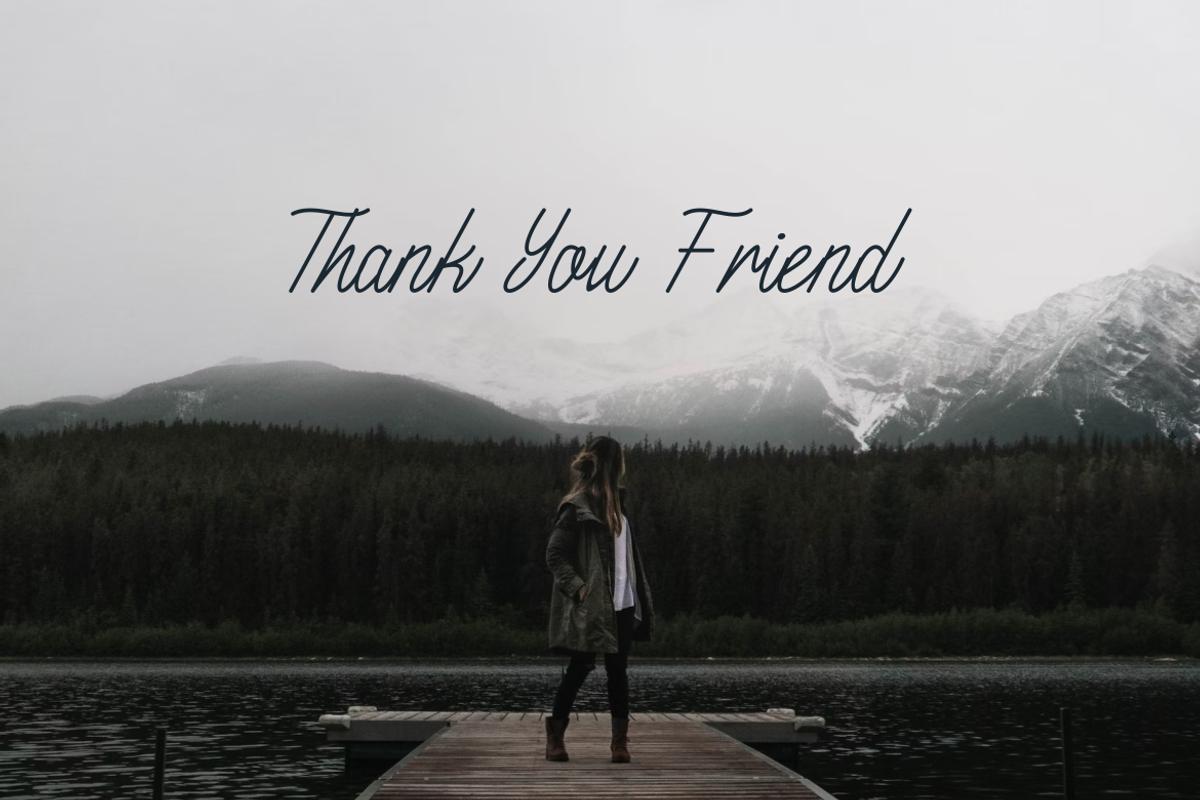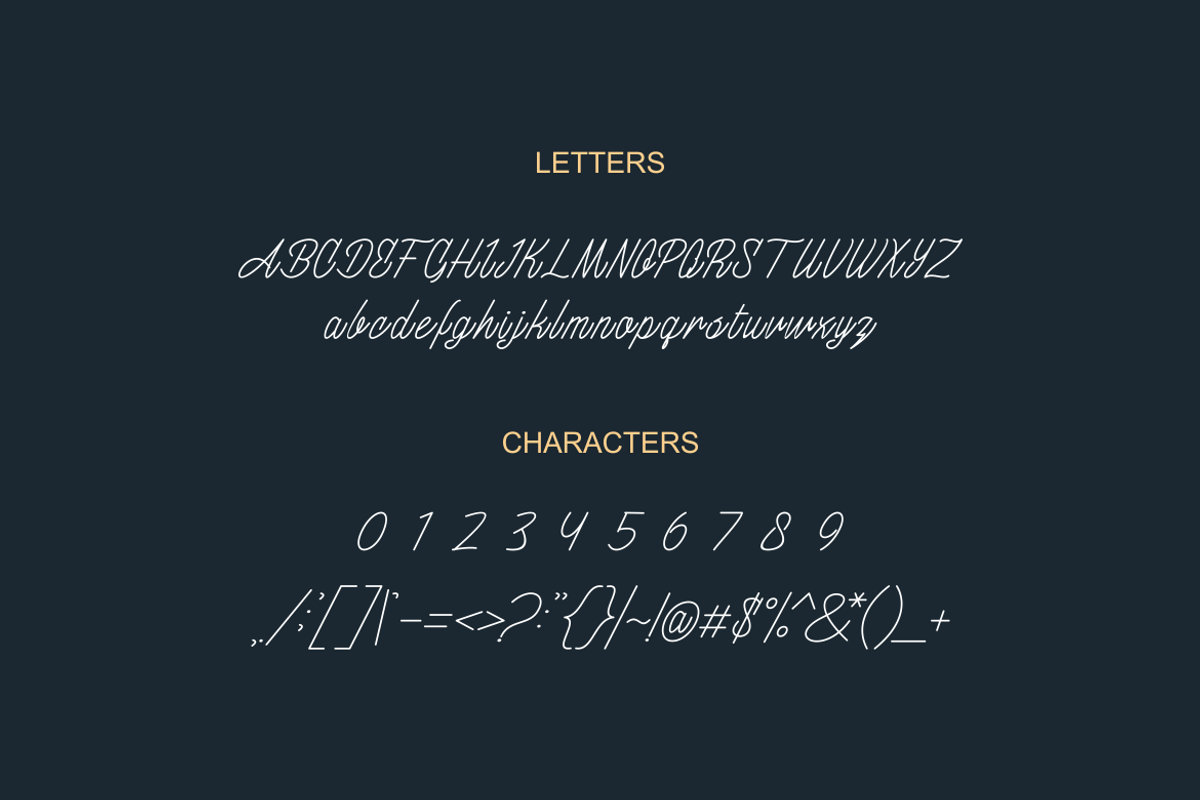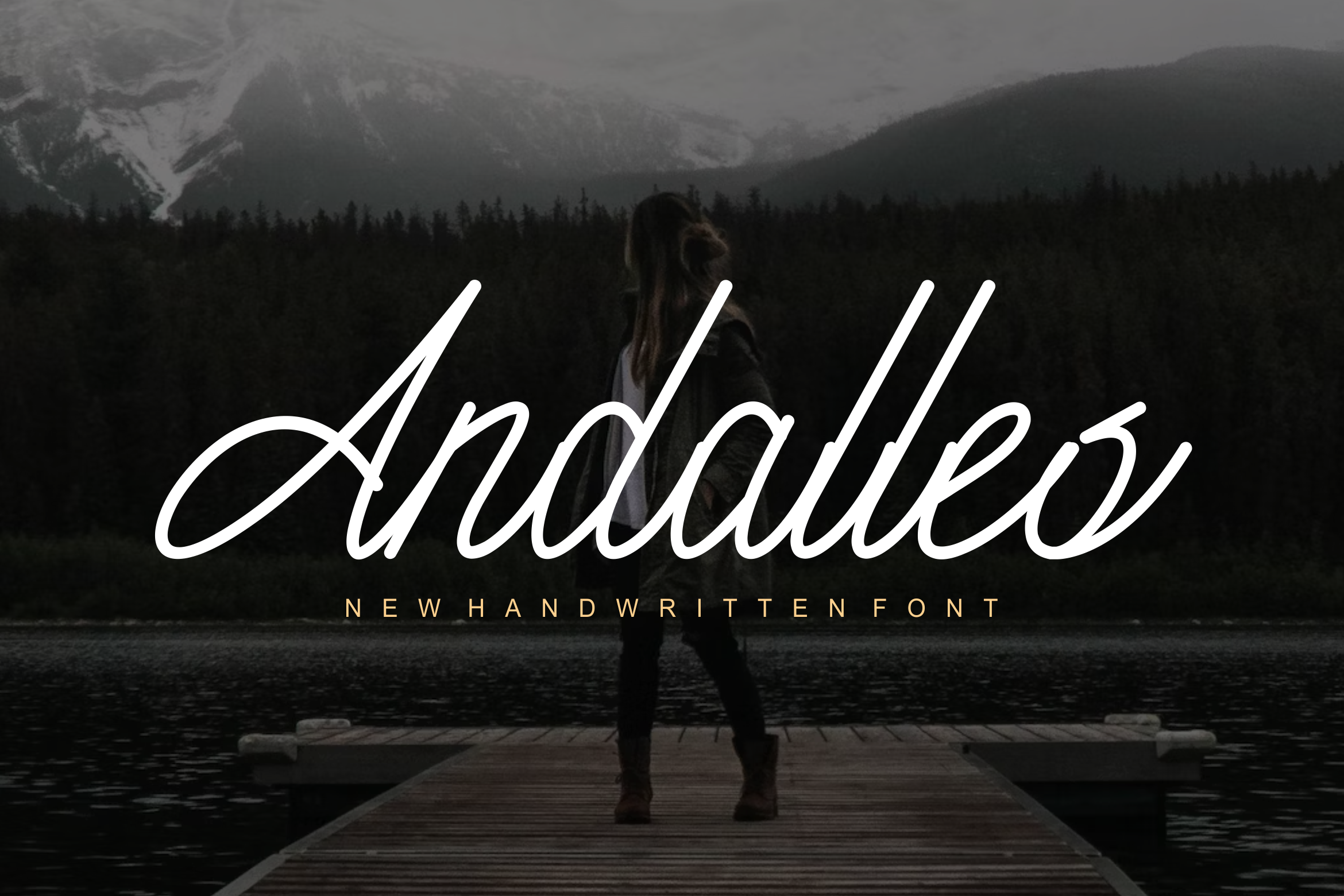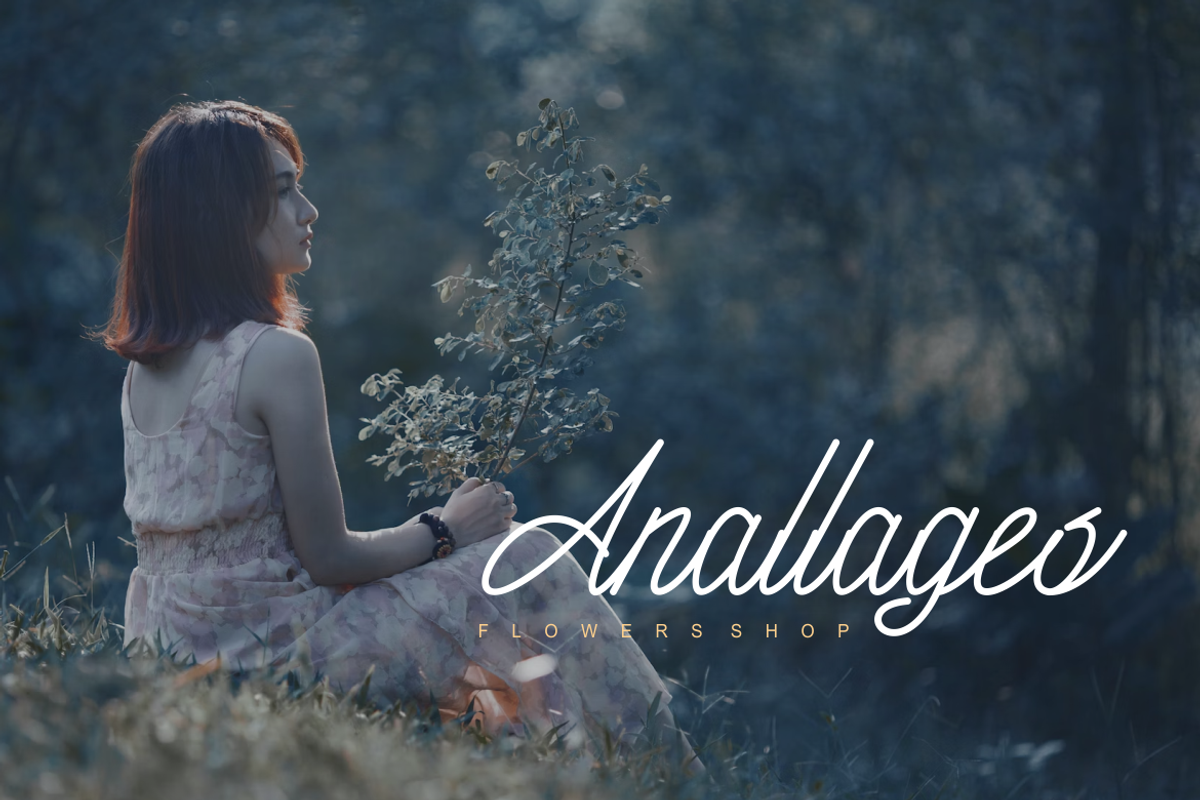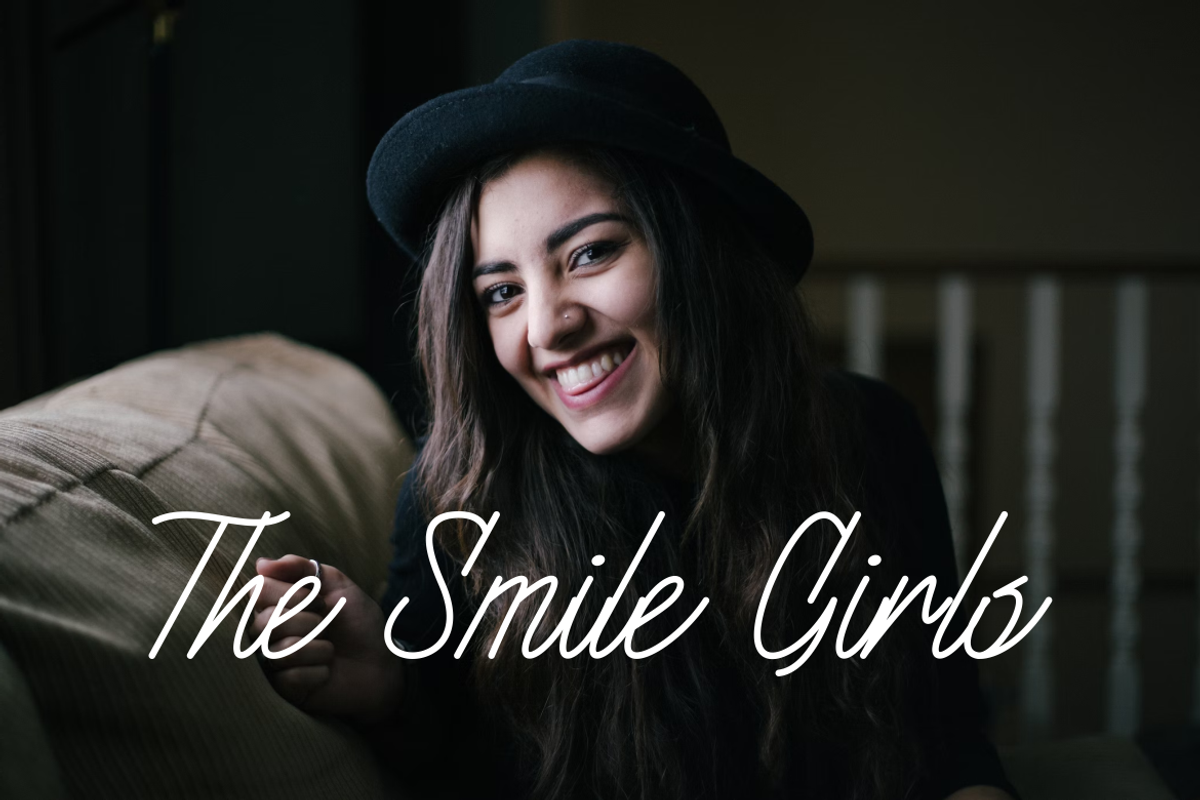
Andalles Font
Introducing our new product Andalles Font - Modern Font
Andalles Font - Modern Font is a bold and authentic display font. The font is suitable for any branding project like logo, esport, and many more. outstanding in a wide range of contexts.